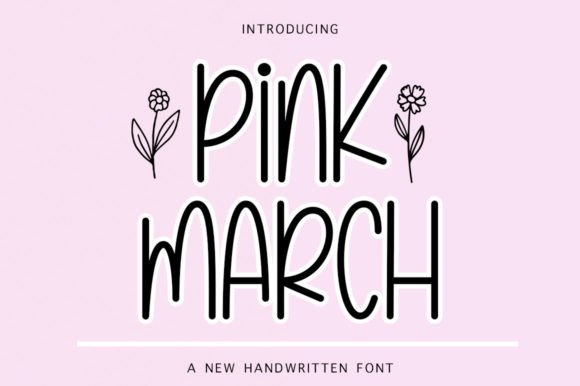
Welcome to the world of Pink March, a font family that embodies the essence of spring with its minimalist and neat handwritten style. Created by the illustrious DN Creative, Pink March is more than just a font; it's an invitation to let your creativity bloom.
Picture this: a gentle breeze caressing your hair, the sun's warm embrace on your skin, and the vibrant colors of nature painting a masterpiece before your eyes. Pink March captures this enchanting essence, inviting you to infuse your designs with a touch of springtime magic.
With its effortless elegance, Pink March complements a vast array of projects, like a versatile chameleon adapting to its surroundings. Whether you're crafting logos, branding materials, or creating captivating social media posts, Pink March seamlessly blends with your vision, elevating it to new heights.
Imagine the awe and admiration as your audience encounters your designs adorned with Pink March. The delicate strokes and graceful curves of this font will create a lasting impression, leaving them spellbound by its beauty.
So, embrace the allure of Pink March, let your creativity soar, and watch as your designs blossom into masterpieces. Every project you undertake will radiate with springtime charm, captivating hearts and leaving an indelible mark on the minds of those who behold it.